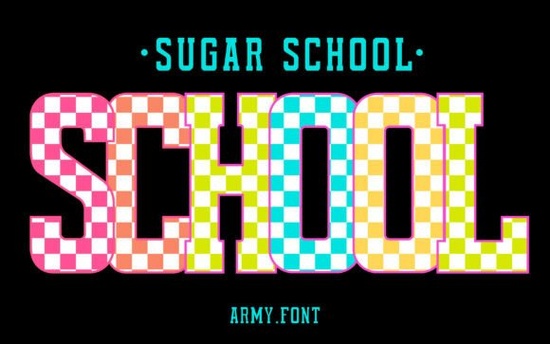
If you are looking for a typeface that instantly brings a playful, organized vibe to your educational crafts, the Sugar School Font is a fantastic choice. This checkerboard style typeface features bold, chunky block letters with a classic grid pattern built right into each character. It is specifically made for teachers, students, and crafters who want to add a bright, energetic feel to their classroom decor and teacher apparel.
How does the checkerboard pattern work in this typeface?
Every single letter in this design acts like a mini canvas. Instead of just being a solid block of color, the characters feature a nested checkerboard pattern. This means when you apply your own colors or gradients in your design software, the grid shows through beautifully. It is perfect for creating high-impact digital graphics or physical items like vinyl decals and sublimation tumblers that need to stand out and radiate positivity.
What kind of projects work best with this chunky block style?
Because of its bold and highly readable design, this typeface is incredibly versatile for back-to-school projects. Here are a few ways to use it:
- Teacher Life Apparel: Create custom t-shirts, tote bags, and mugs for teacher appreciation week or everyday classroom wear.
- Classroom Decor: Design vibrant name tags, welcome banners, and organizational labels for bins and folders.
- Educational Materials: Make engaging worksheets, flashcards, and bulletin board headers that catch the students' attention.
How can I make the most of this font for my print-on-demand shop?
When selling teacher-themed products, standing out in a crowded market is key. Since this typeface already has a built-in pattern, you save time on texturing your designs. Use contrasting colors for the letters and the checkerboard squares to make the text pop. Keep the background of your apparel or mug simple so the busy pattern does not clash. Combine it with simple, clean graphics like apples, pencils, or geometric shapes to balance the bold text.